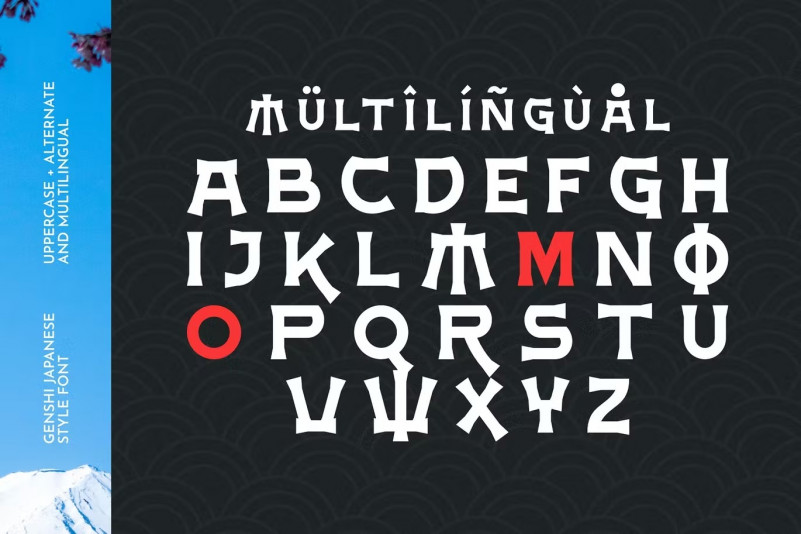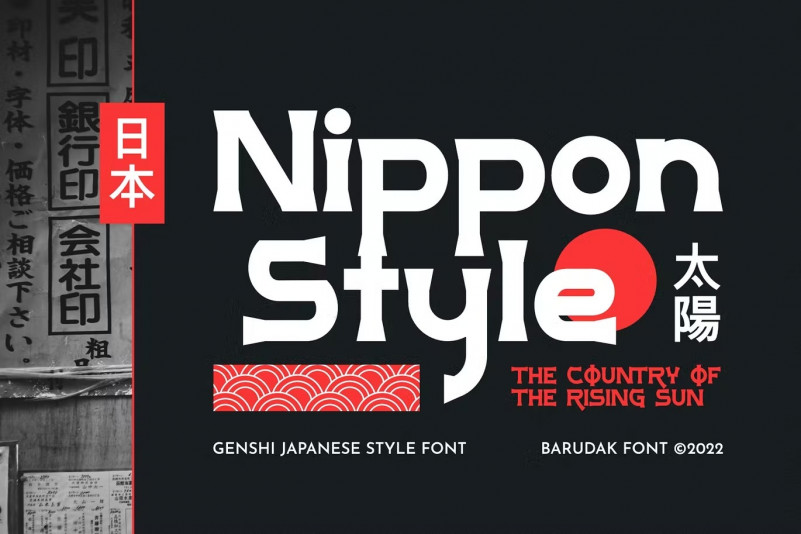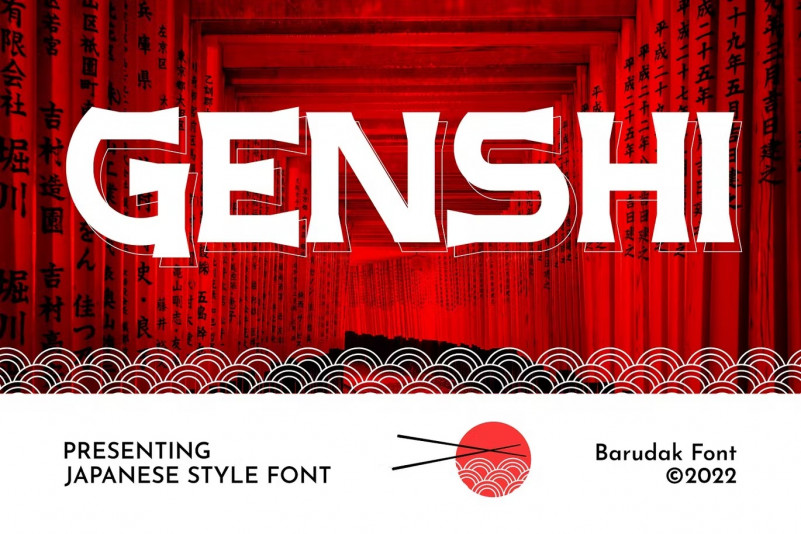
Genshi Font
Genshi – Serif Japanese Display Font. You can creatively edit and use this illustration set on merchandise, logo, sticker, patches, badge, and many more.